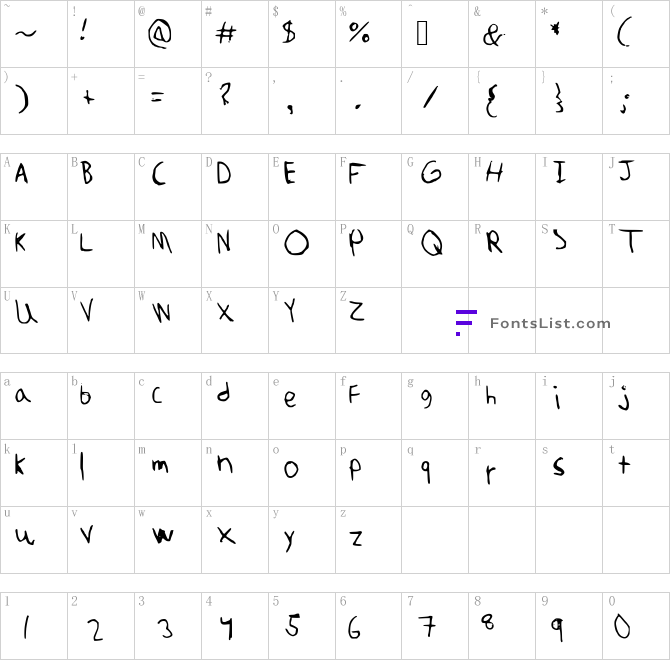
- Font Name:amuninokia
amuninokia.ttf is a very beautiful artistic font, amuninokia.ttf is widely used in the design and printing of various books and pictures,amuninokia.ttf has a strong visual impact,amuninokia.ttf is a commonly used font in newspapers, magazines and books, and is used in posters, e-commerce Poster design, store design, logo design, font design and other fields.amuninokia.